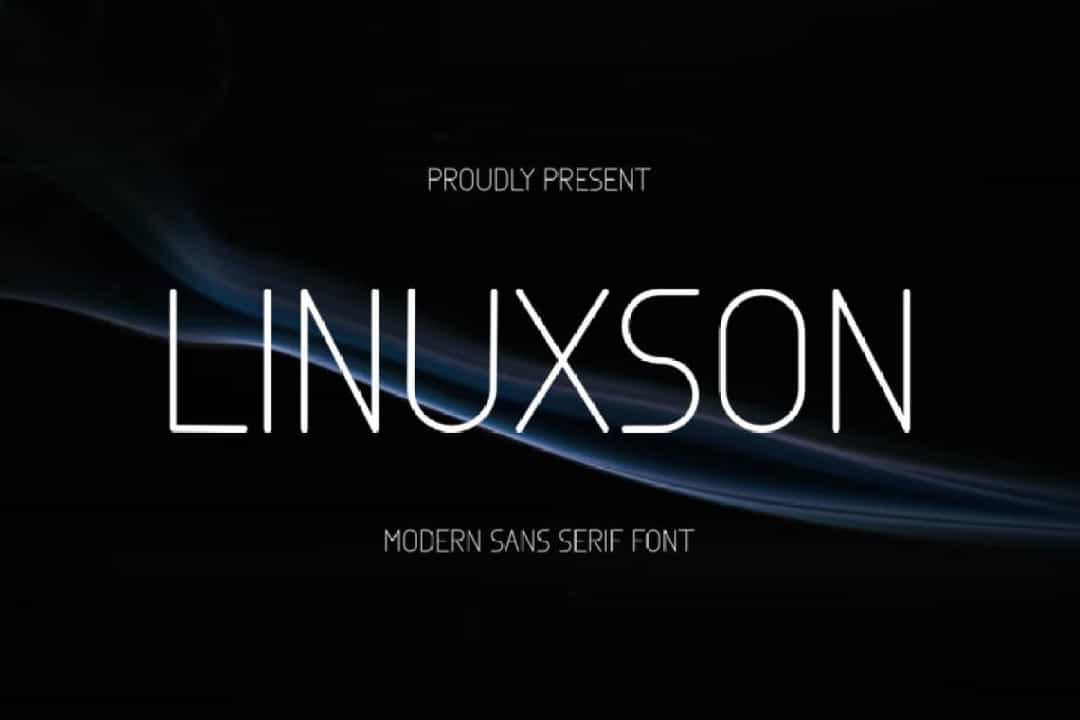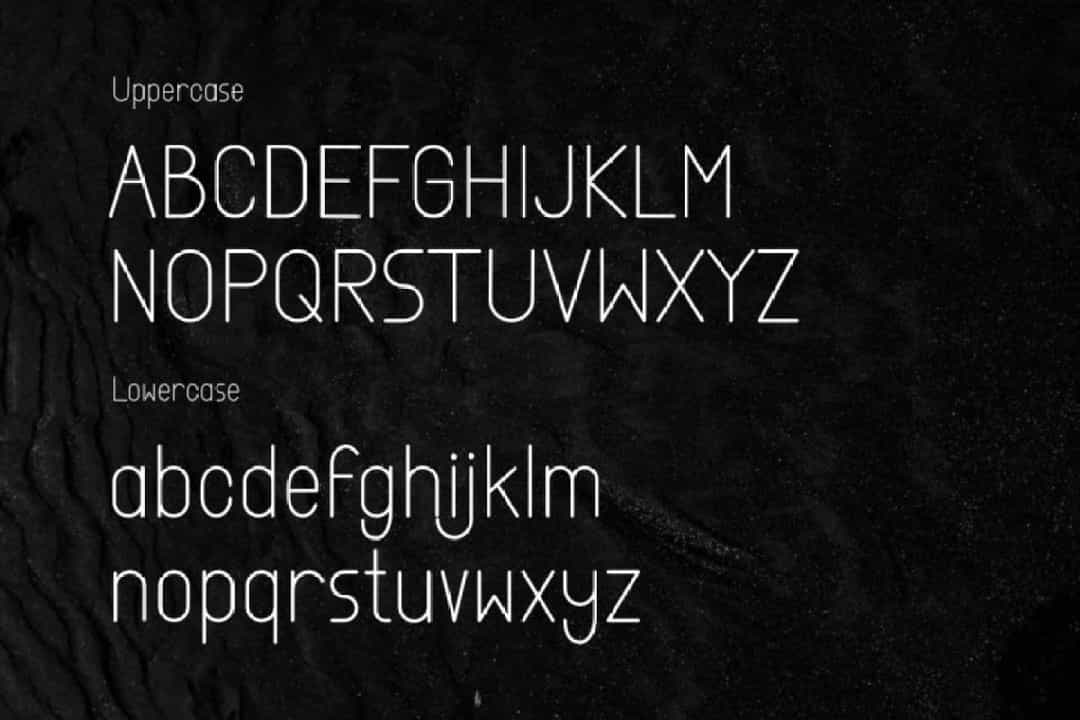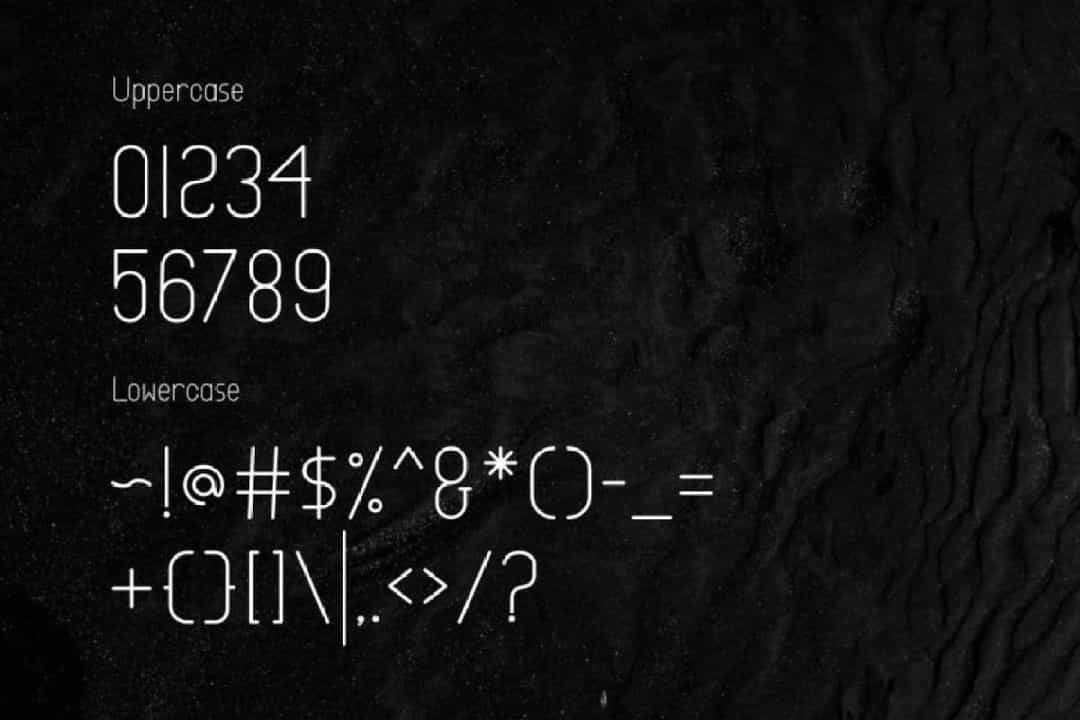
Linuxson is an elegant sans-serif font created from an ultra-minimalistic monoline design interpreted with contemporary and sophisticated flair. Perfect for creative projects such as printing books, titles and headlines, photography branding, embellishments logos and much more – Linuxson will leave a lasting impression in every creative project you undertake!